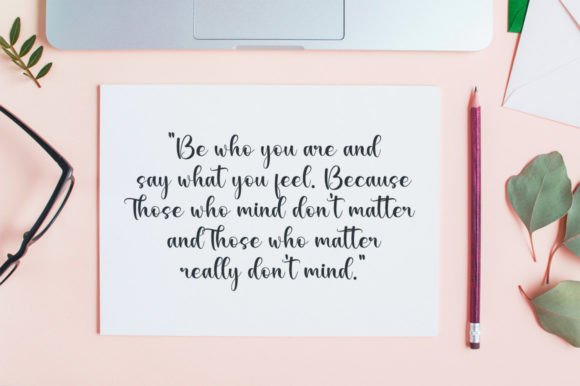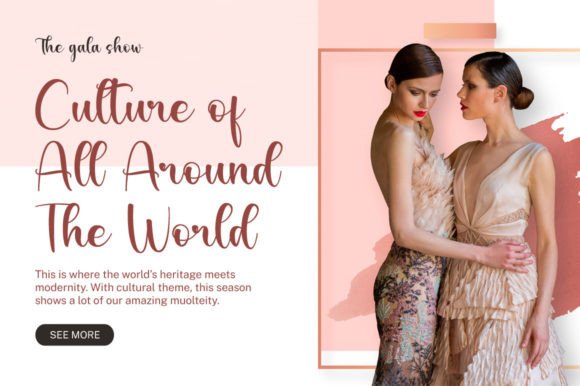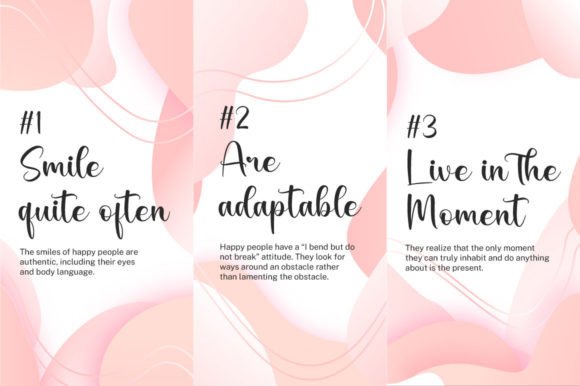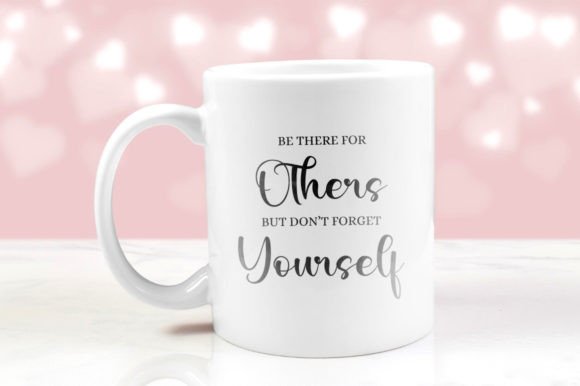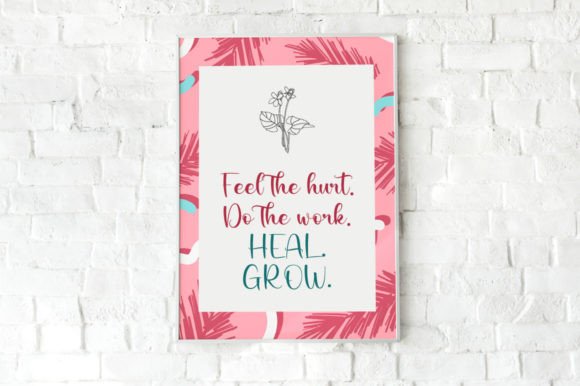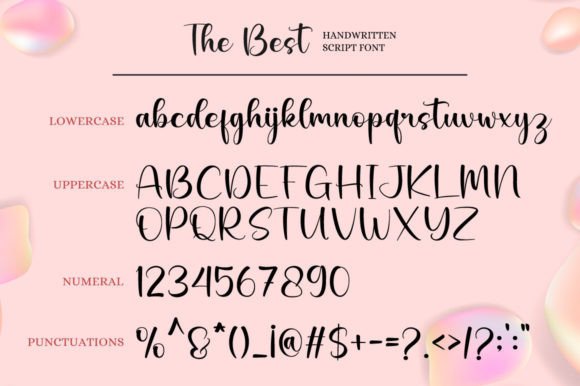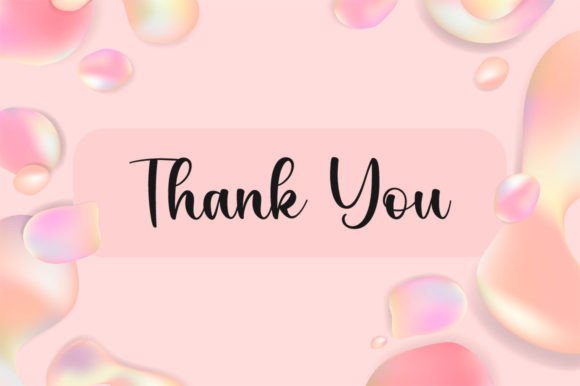
The Best Font
About The Best Font
The Best is a lovely and timeless handwritten font. It is the best choice for creating eye-catching logos, branding, and quotes.